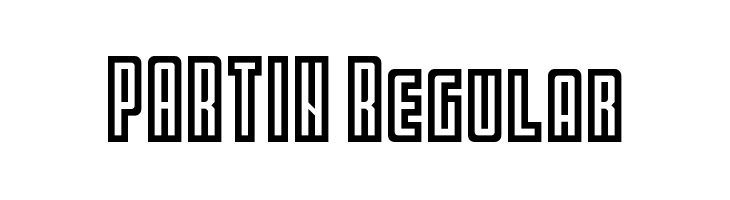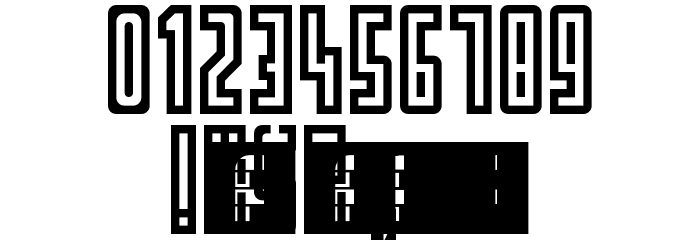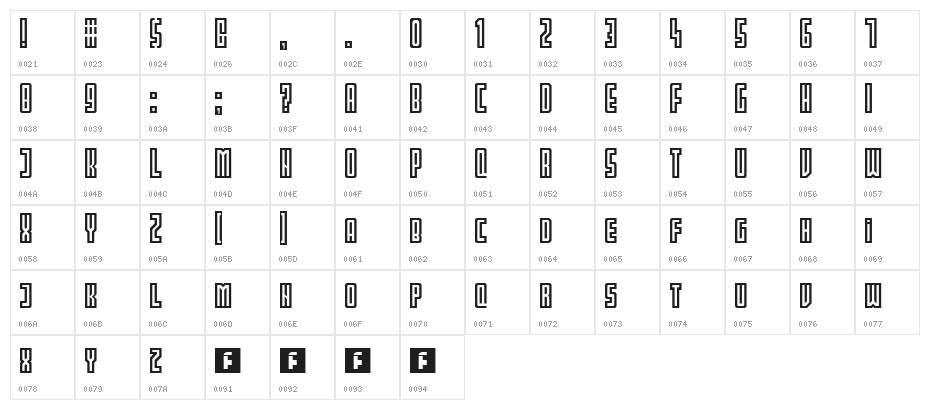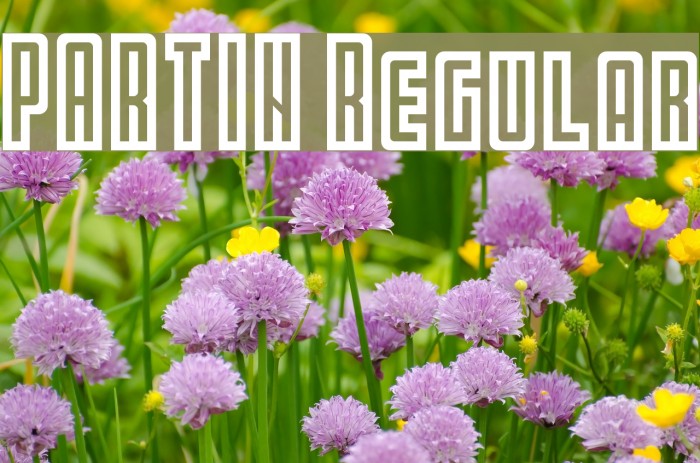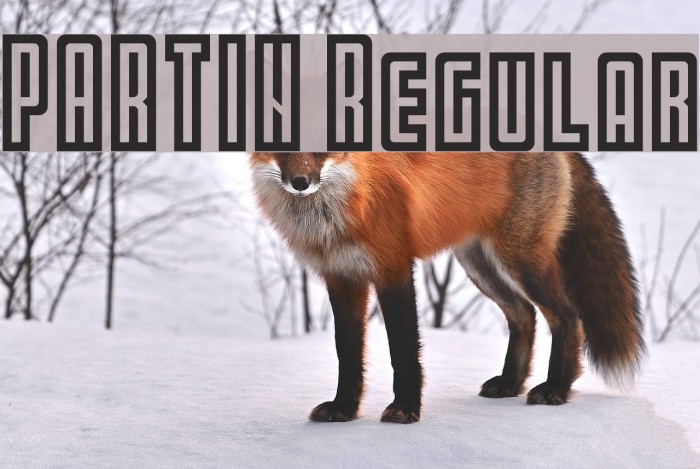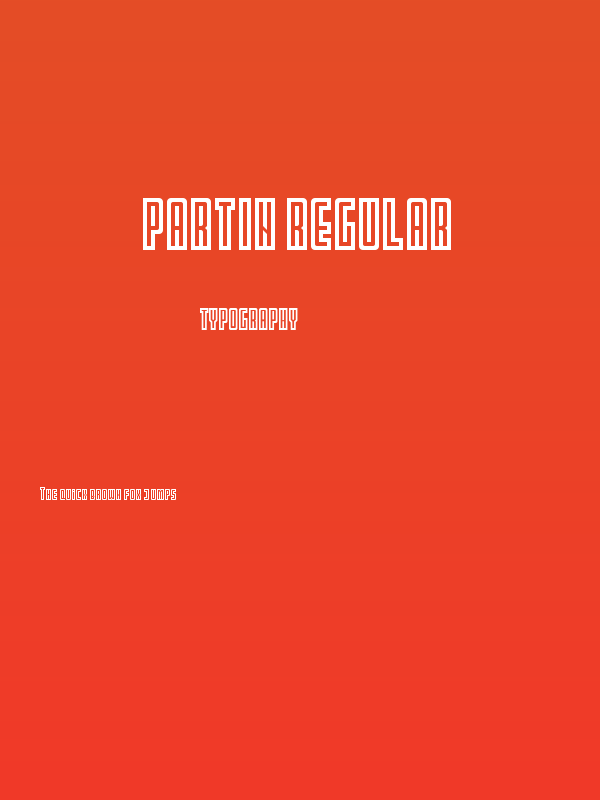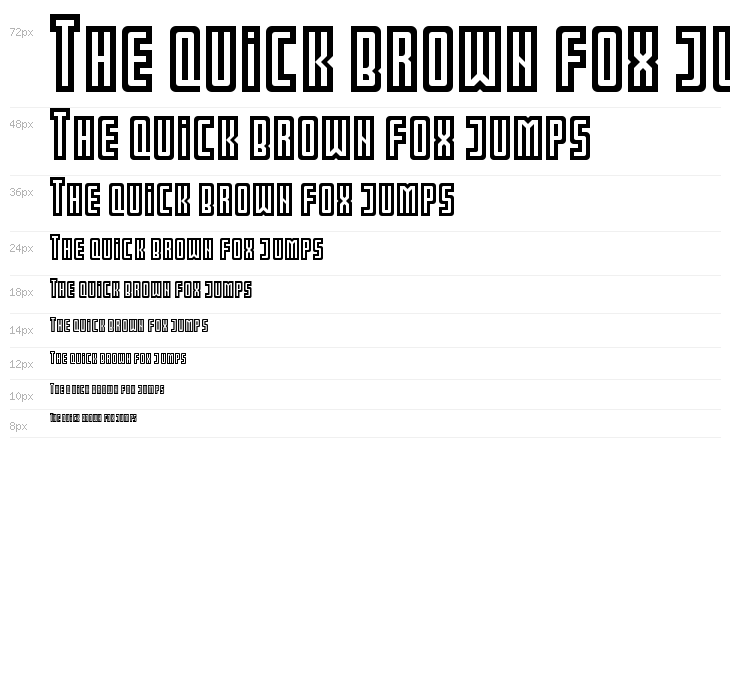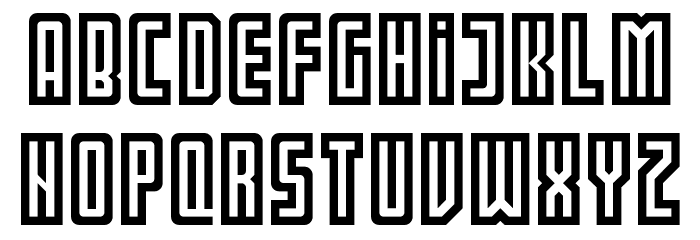
PARTIN Regular Font
PARTIN Regular Description
This font features a bold, geometric design with a strong emphasis on vertical and horizontal lines, creating a structured and modern appearance. The characters are outlined, giving them a three-dimensional effect that enhances their visual impact. The uppercase and lowercase letters maintain a consistent style, with sharp angles and clean edges. The numerals and special characters follow the same design principles, ensuring uniformity across all glyphs. This font is particularly striking due to its unique combination of boldness and precision, making it ideal for attention-grabbing designs.